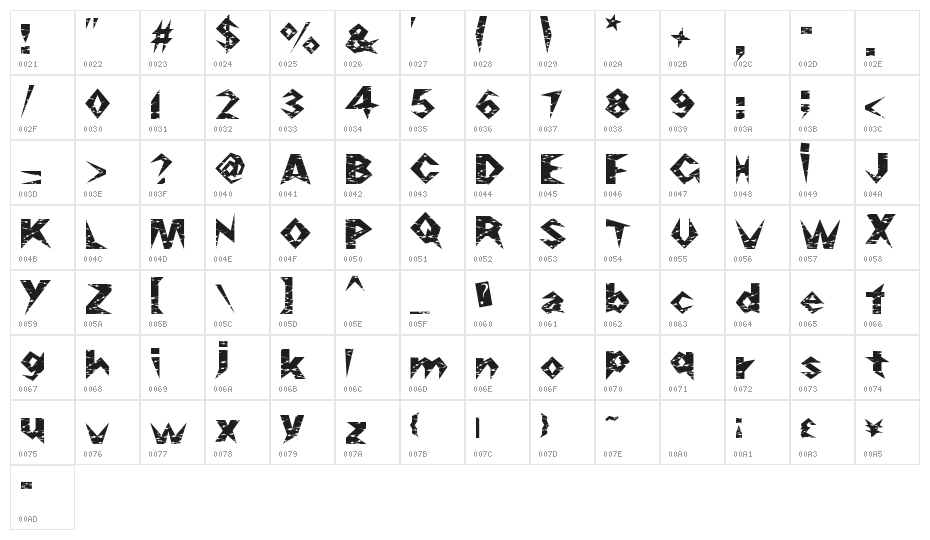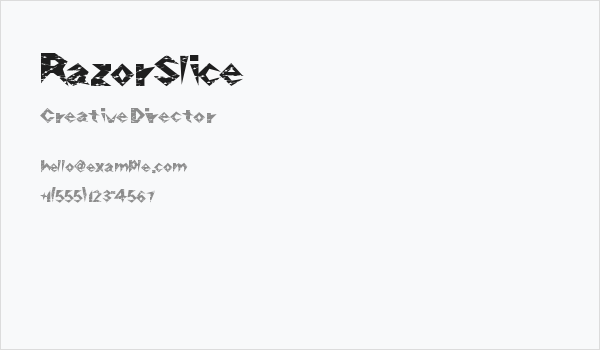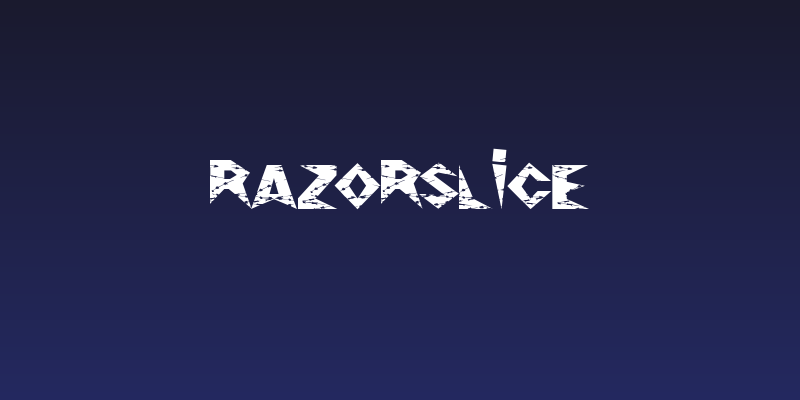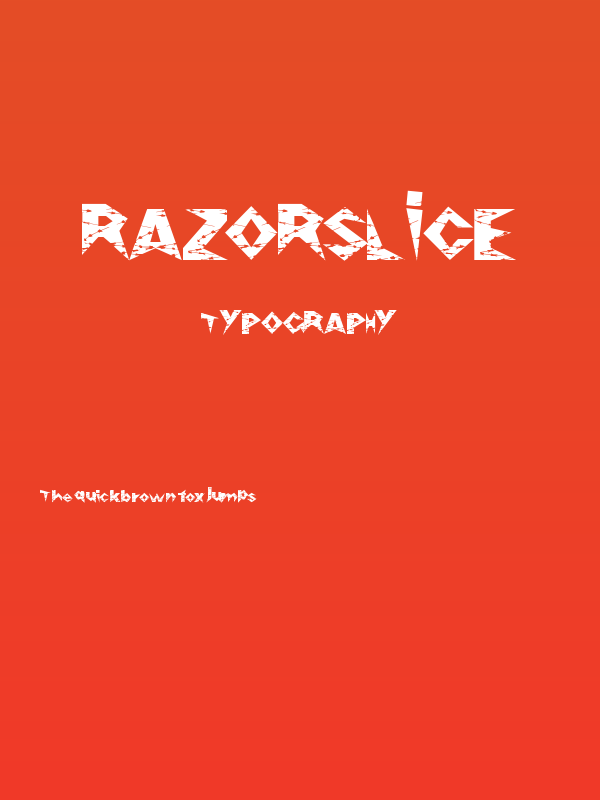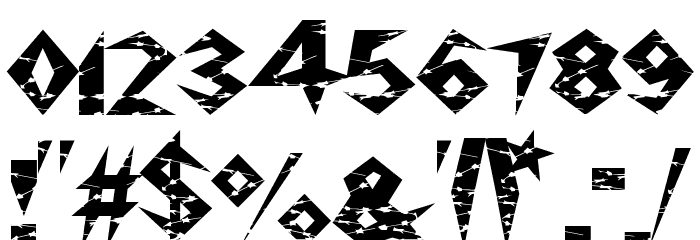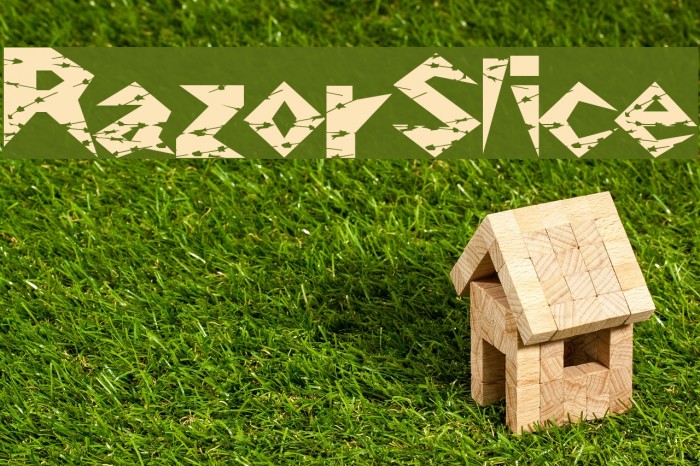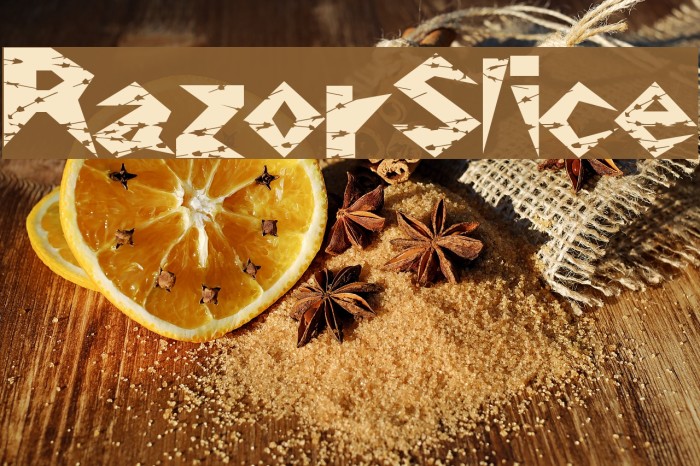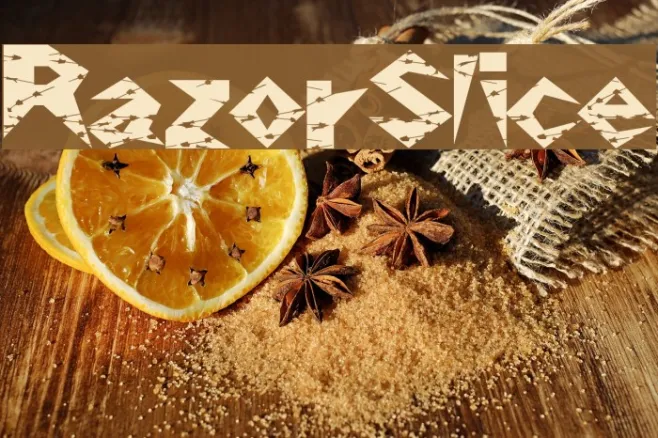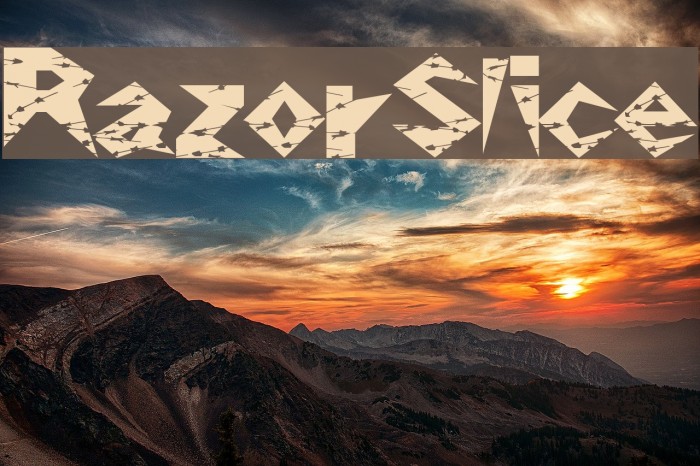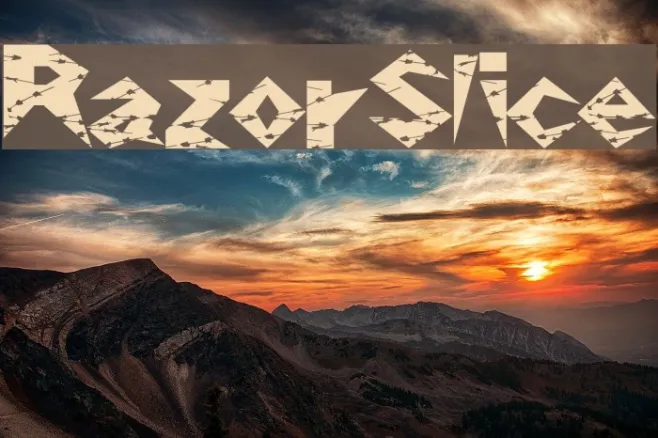
RazorSlice Font
RazorSlice Description
This font features a sharp, edgy design with a fragmented appearance, reminiscent of shattered glass or jagged edges. Each character is uniquely styled with angular cuts and irregular shapes, creating a dynamic and aggressive look. The bold and striking nature of the font makes it stand out, with high contrast between the thick and thin strokes. The overall style is highly decorative, making it suitable for attention-grabbing designs. The characters are tightly spaced, enhancing the compact and intense feel of the font. This font is ideal for projects that require a bold statement or a modern, rebellious aesthetic.